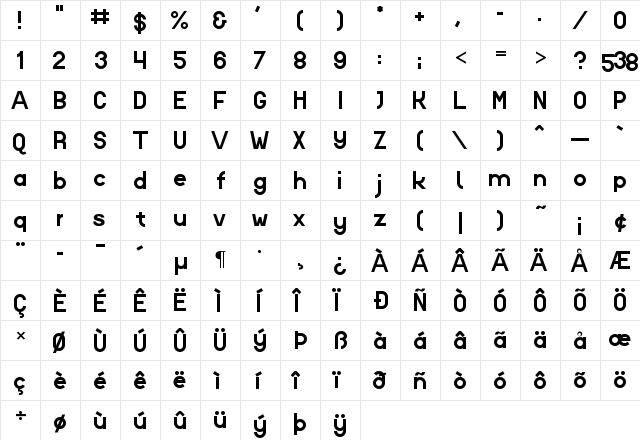
538Lyons Font Regular
Design Context for 538Lyons Font Typeface
538Lyons Font is a composed and adaptable typeface that performs quietly and consistently across a wide range of design contexts.